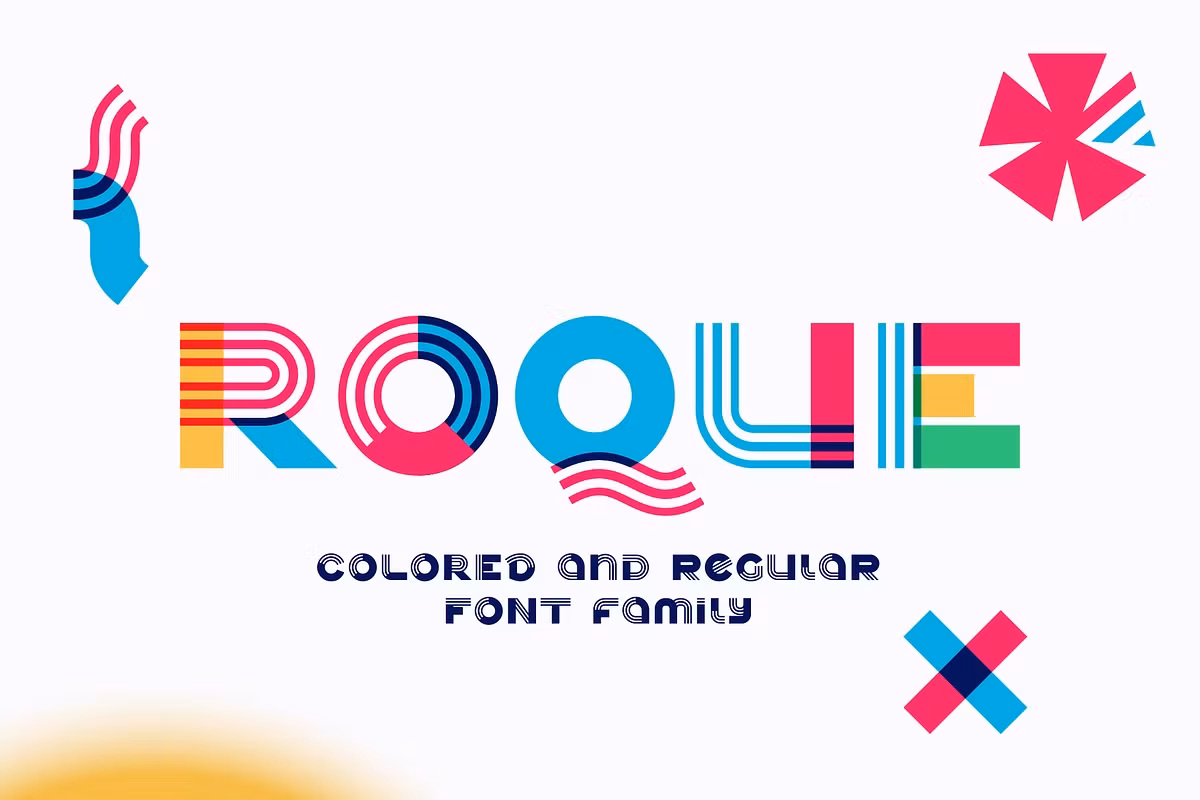
Roque Color Font Free Download is a vibrant, eye-catching display font that brings color and personality to any design. As a color SVG font, Roque is perfect for bold headlines, playful branding, posters, and any creative project that needs a splash of fun and originality. Its layered look and rich textures instantly grab attention and elevate visual impact.